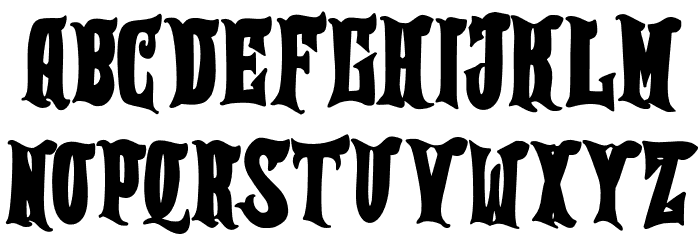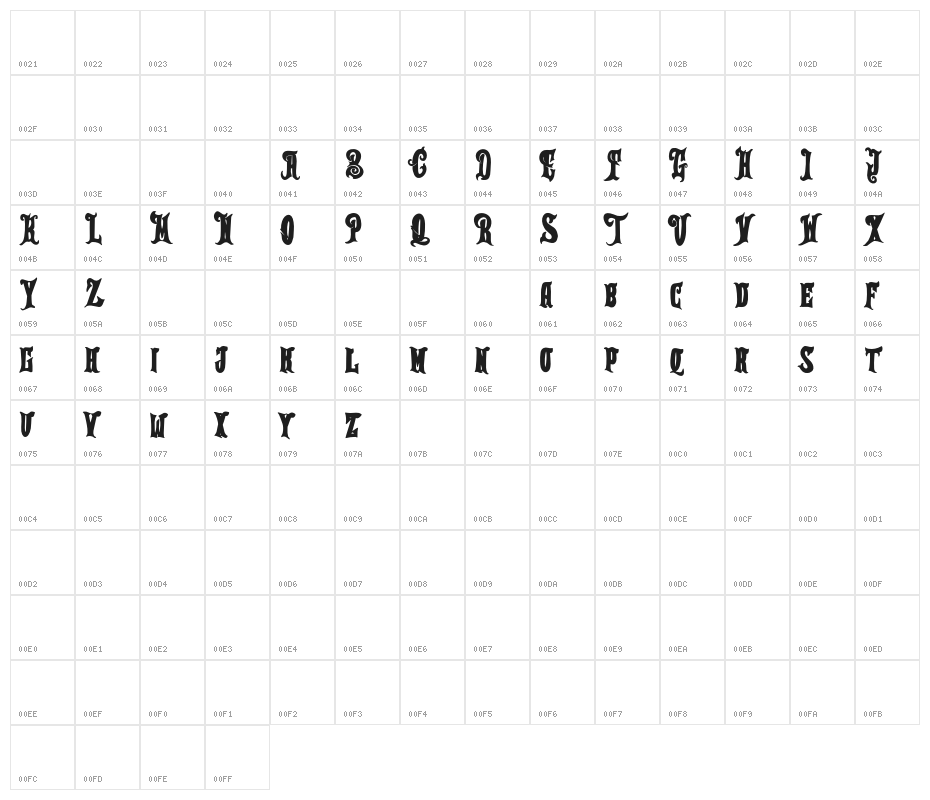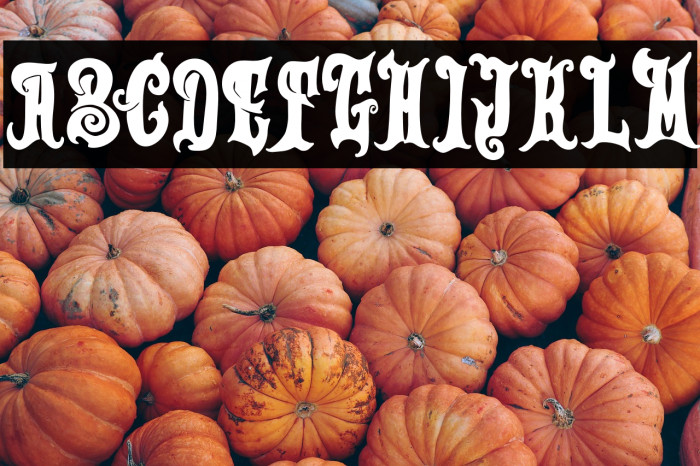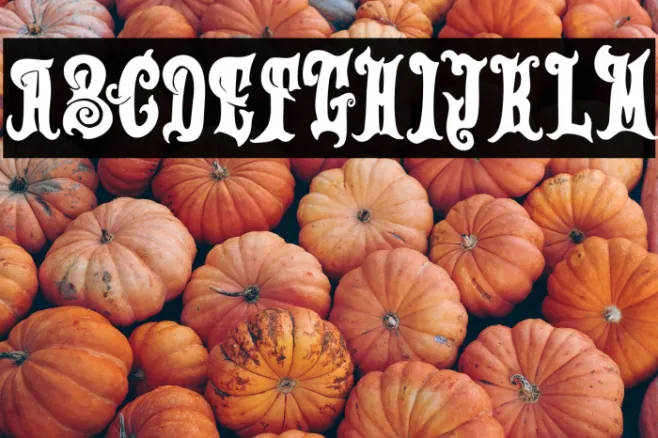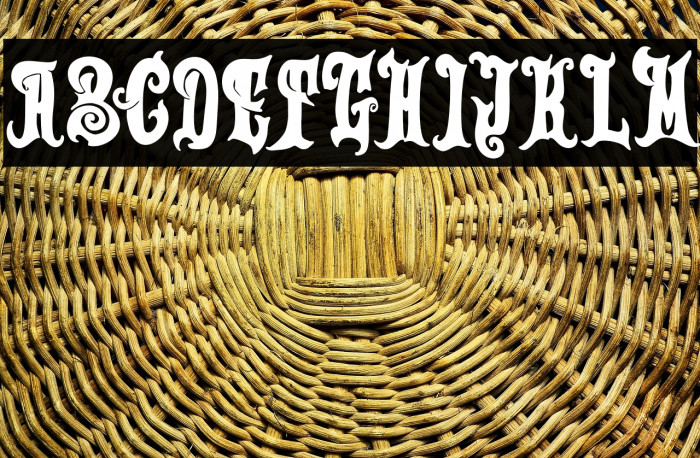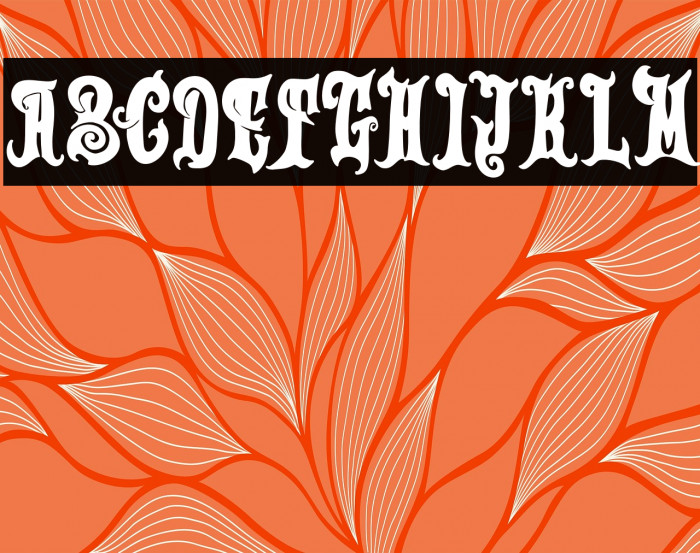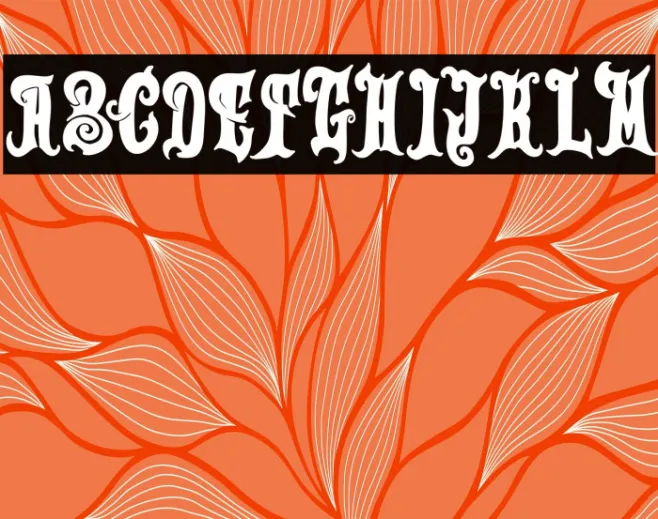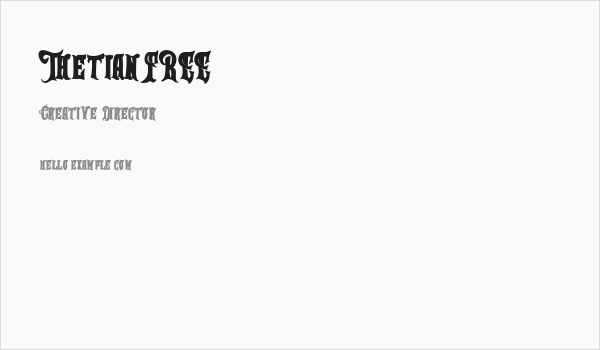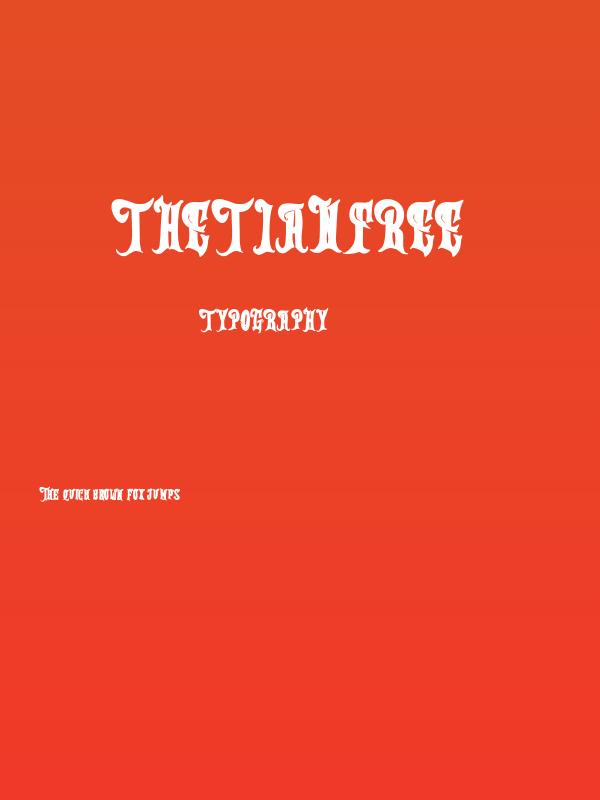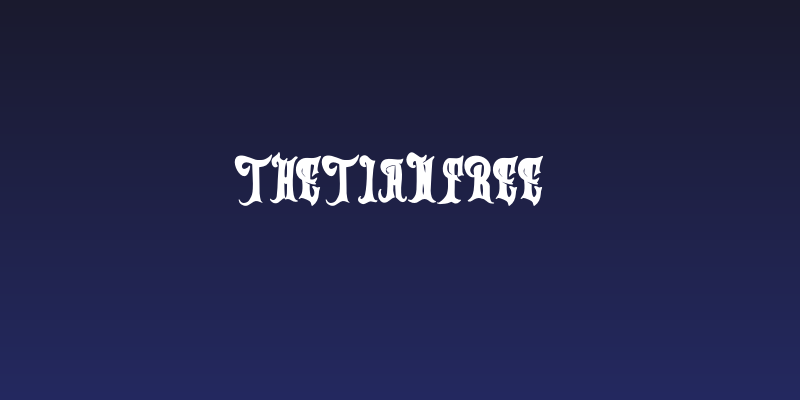
ThetianFREE Font
This font features a bold and dramatic style with intricate, ornate details that give it a distinct and eye-catching appearance. The characters are heavily stylized, with exaggerated serifs and flourishes that create a sense of movement and flair. The overall design is reminiscent of vintage or gothic typography, making it suitable for projects that require a strong visual impact. The uppercase letters are particularly elaborate, while the lowercase letters maintain the same decorative theme. This font is ideal for use in headlines, posters, or any design that seeks to convey a sense of elegance and boldness.
A bold, ornate font with vintage and gothic influences, ideal for impactful designs.
- Font: ThetianFREE
- Proposed Projects: Perfect for posters, album covers, branding, and any project needing a dramatic and stylish typeface.
- Overall Style: Vintage, Gothic
- Use Case: Headlines, Posters, Branding